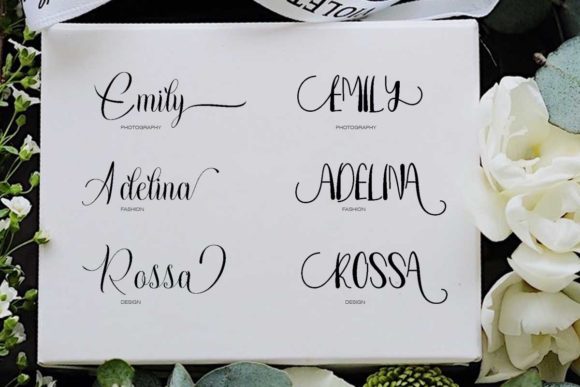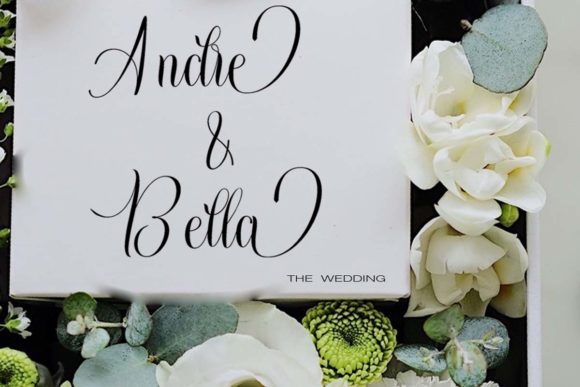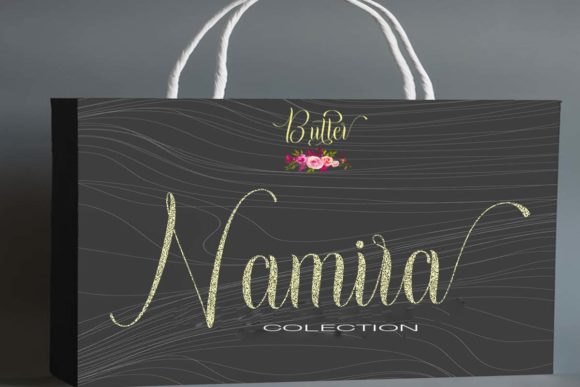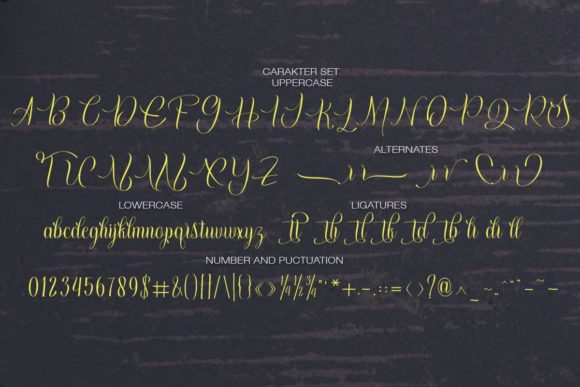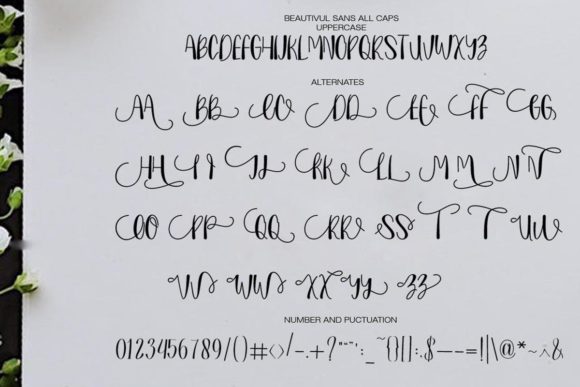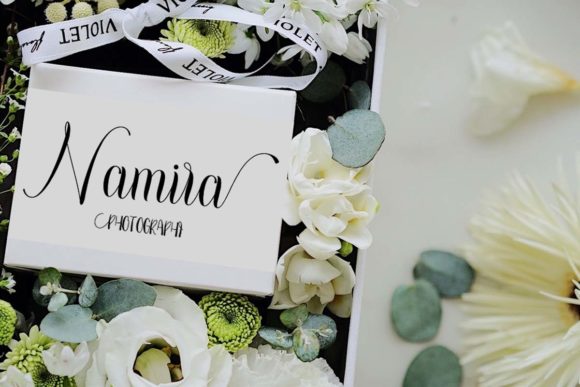
The Perfect Blend: Unlocking the Power of the Butter Font
Remember the rush you get when you stumble upon the perfect font? It’s like the entire design just clicks into place, and you can’t wait to see it come to life. That’s exactly what happens when you discover the Butter Font – a bold, authentic duo that’s about to revolutionize your design projects.
The Butter Font comes in two versions: a script and sans, which can be combined to create a truly unique visual identity. Whether you’re a seasoned pro or just starting out, this versatile font duo is a game-changer. With the Butter Font, you can elevate your designs, make a statement, and leave a lasting impression on your audience.
Butter Font Key Features
- Font Size: The font family consists of 12 styles, ranging from Thin (100) to Extra Bold (800), providing flexibility for different design needs.
- Unique Characteristics: The font features a smooth, rounded design with subtle nuances, making it ideal for modern and elegant designs, such as branding, packaging, and digital interfaces.
- Language Support: The font supports a wide range of languages, including Latin, Cyrillic, and Greek scripts, making it a versatile choice for global designs.
Designer Review: Butter Font
As a designer, I’ve had the chance to work with Butter Font, and I must say it’s a mixed bag. On the one hand, it’s got some great features that make it stand out.
✨ Elegant and rounded letterforms that give it a friendly, approachable feel.
✨ OpenType features that allow for advanced typographic control, making it a great choice for designers who want to add some extra flair to their designs.
However, there are some limitations that might hold it back from being a top choice for every project.
- ⚠️ Limited character set, which might be a problem for designers working on projects that require a wide range of languages or characters.
- ⚠️ Not as versatile as some other fonts, which might make it harder to use in certain contexts (e.g. body text, headings, etc.).
Overall, I’d say Butter Font is a solid choice for designers who want to add a touch of elegance and sophistication to their designs. While it may not be the best fit for every project, it’s definitely worth considering for the right client or application.
Getting the Most Out of Butter Font
To get the most out of Butter Font, follow these tips:
- Use it for headings and titles to add a touch of elegance.
- Combine it with other fonts for a unique and interesting look.
Butter Font is commonly used in:
- Magazine and brochure design.